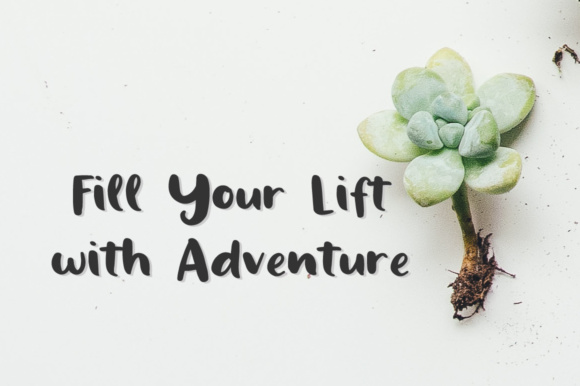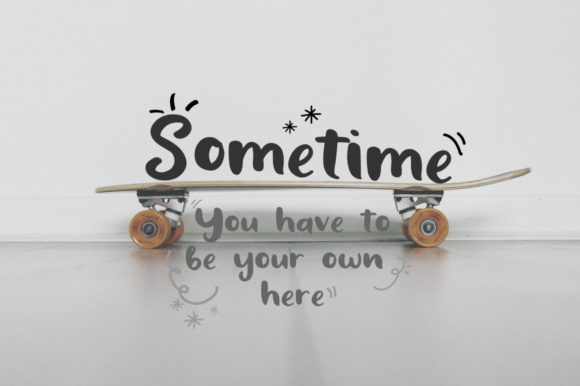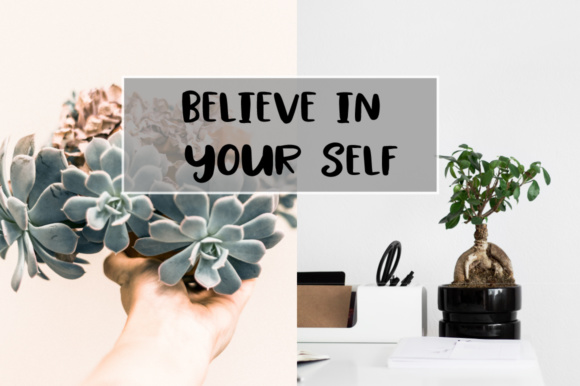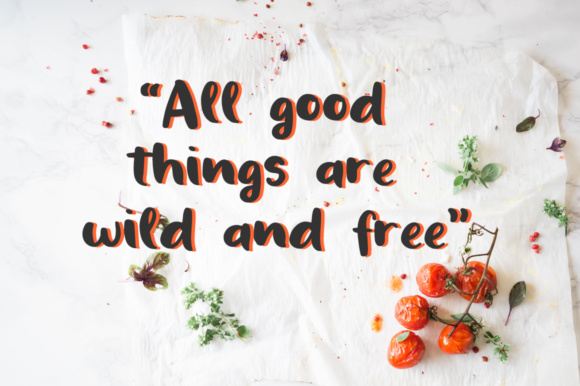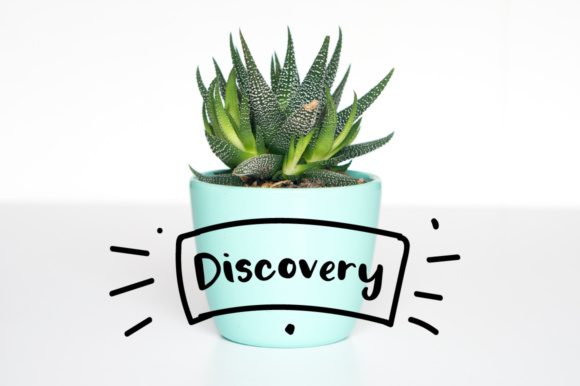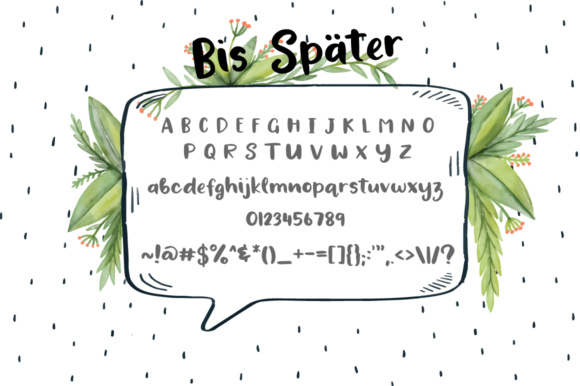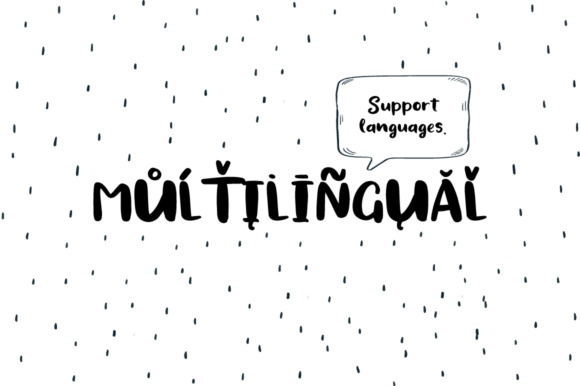
Bis Spater Font
About Bis Spater Font
The Bis Spater is a handwritten script font. It’s perfect for every design project which needs a bold, striking, script font.